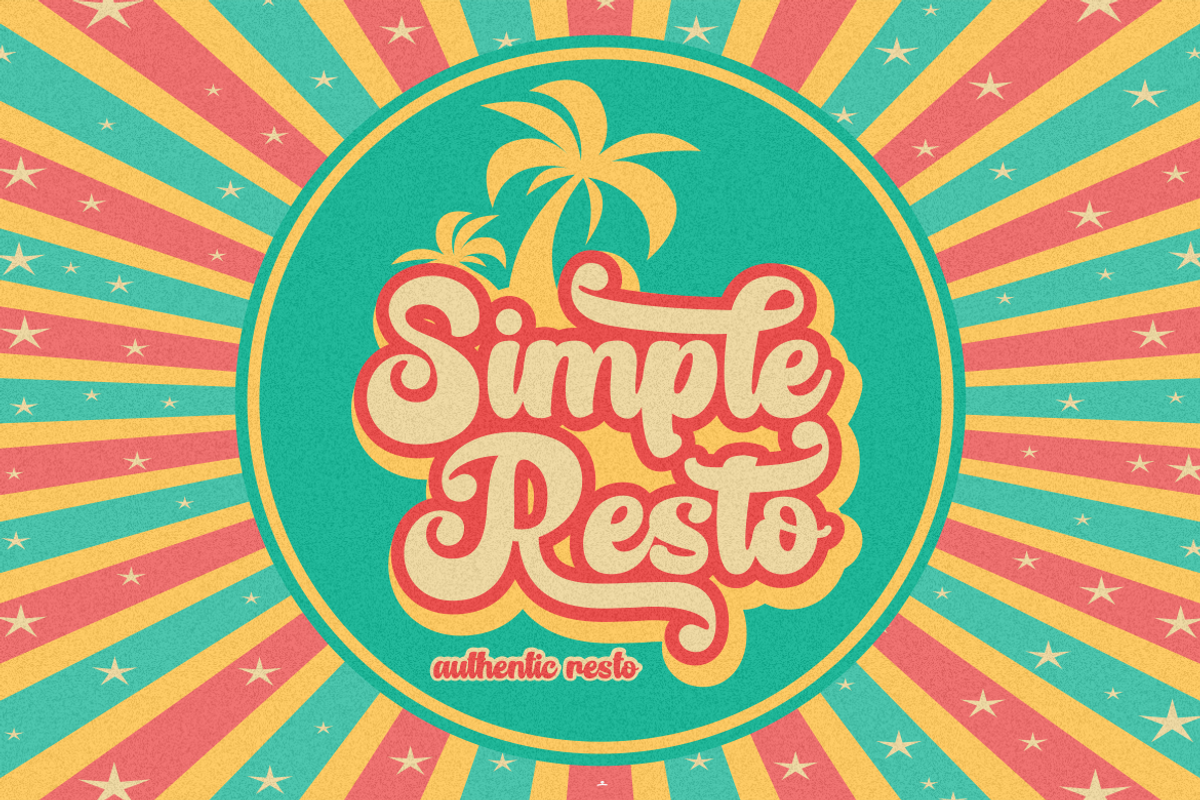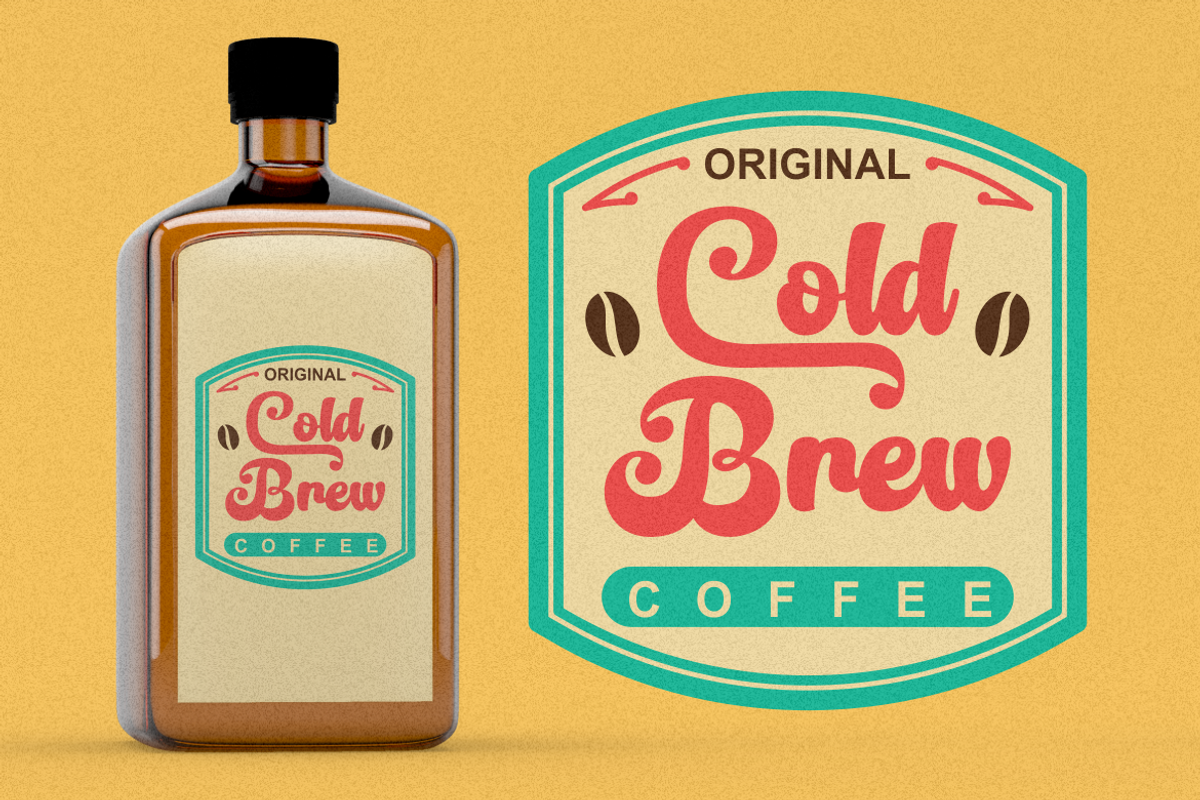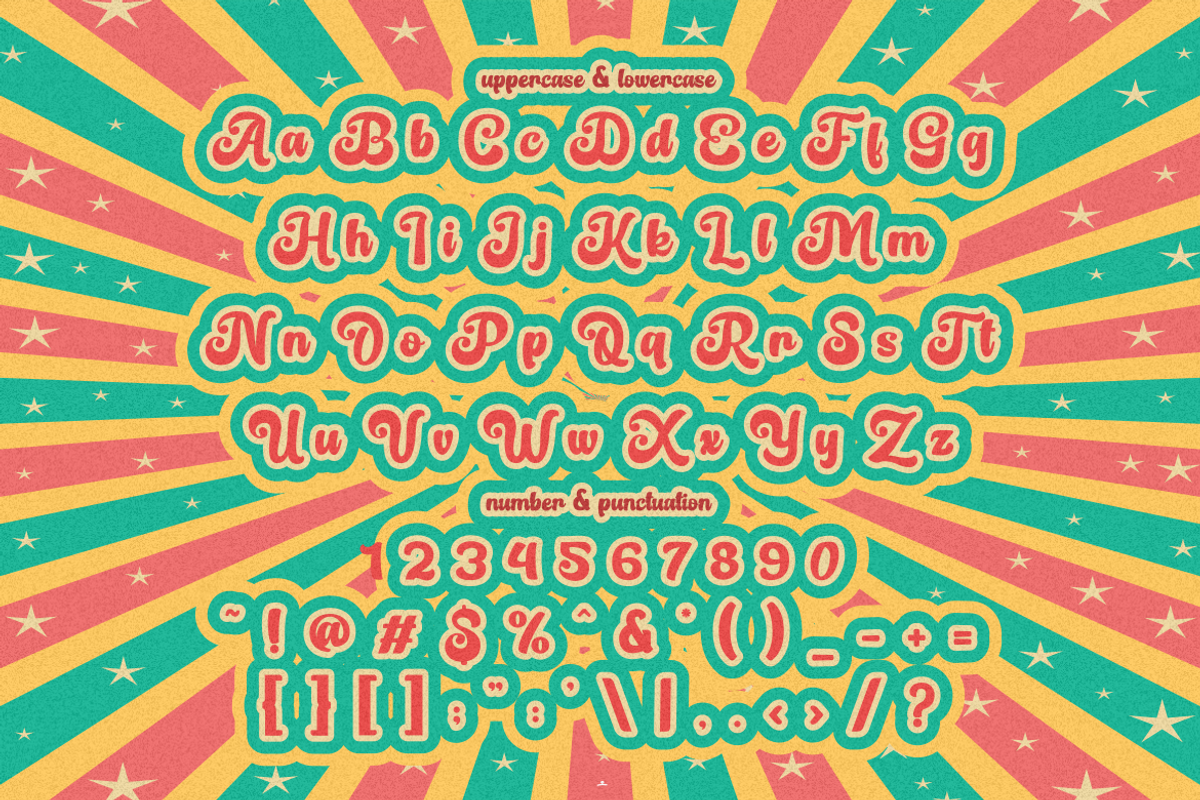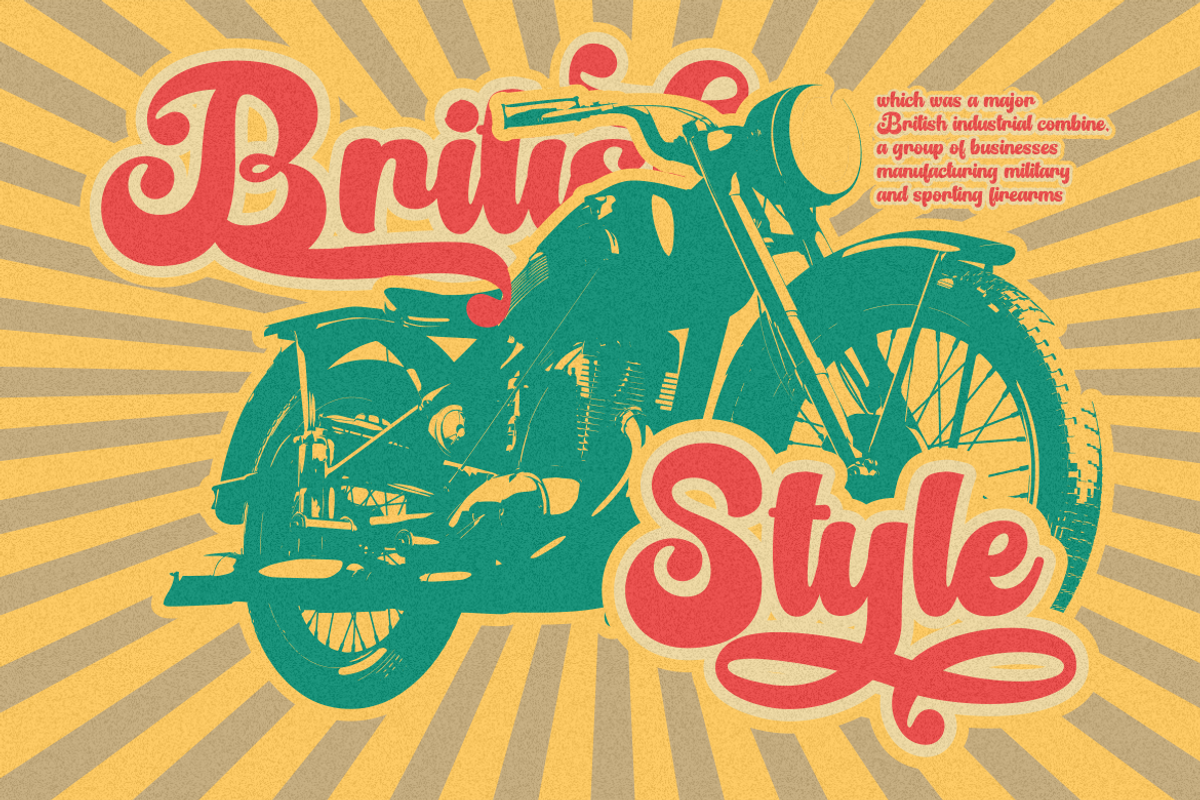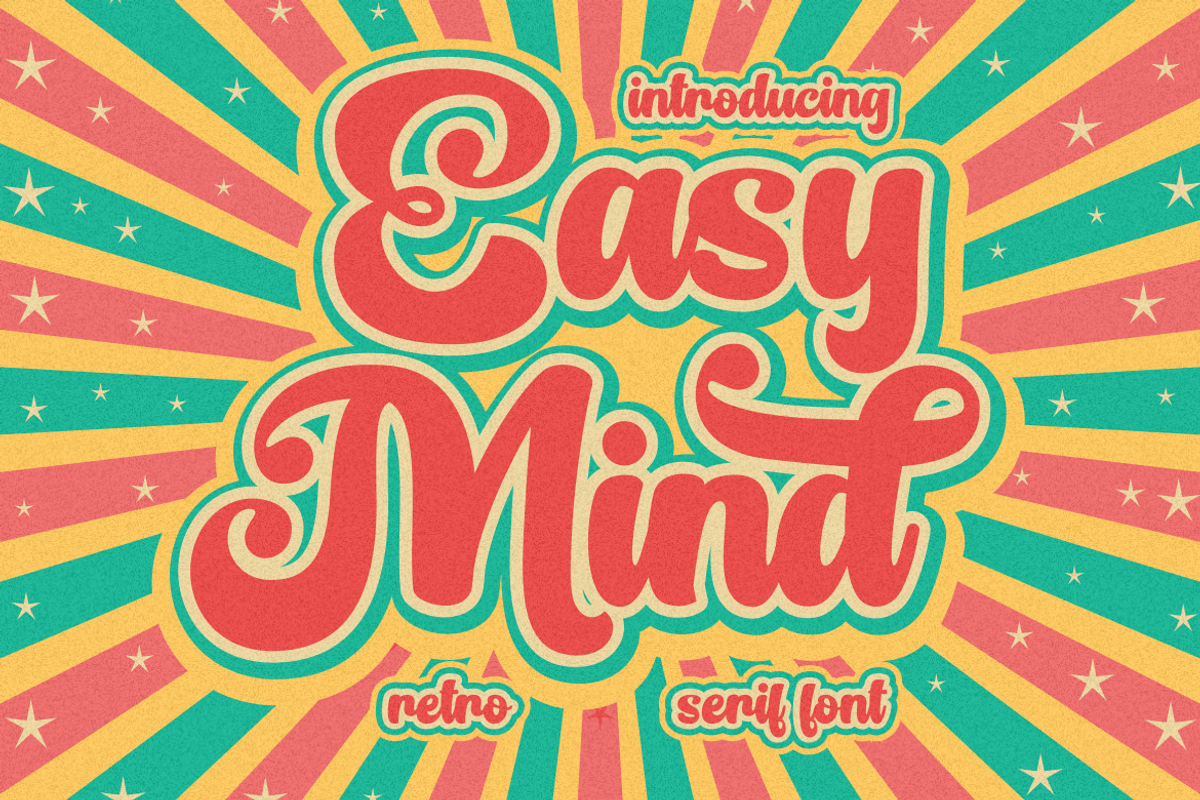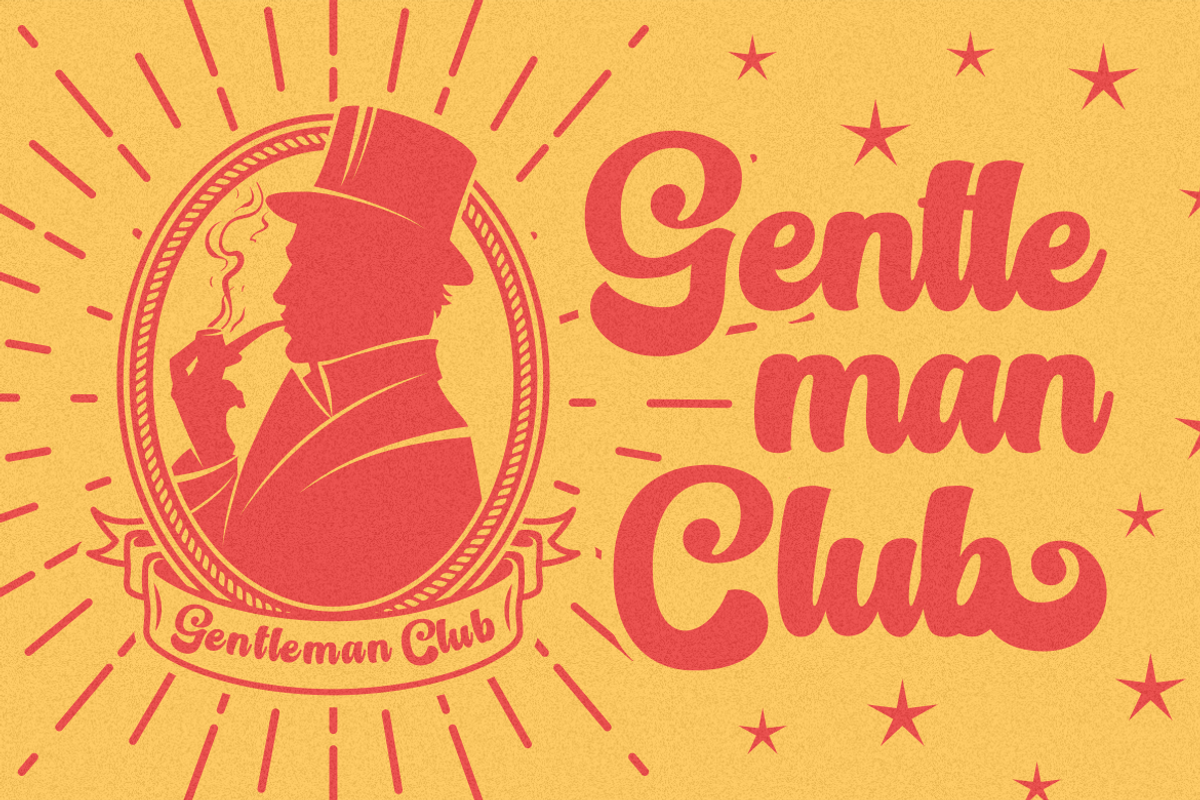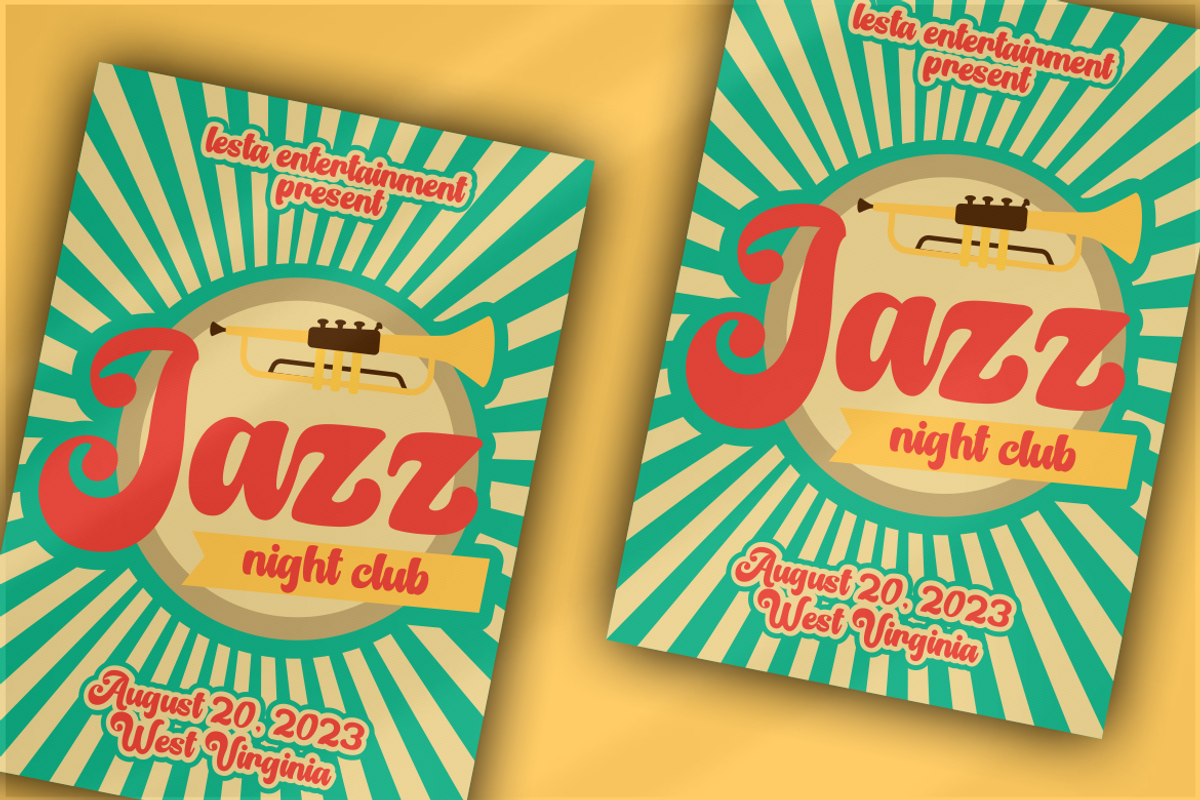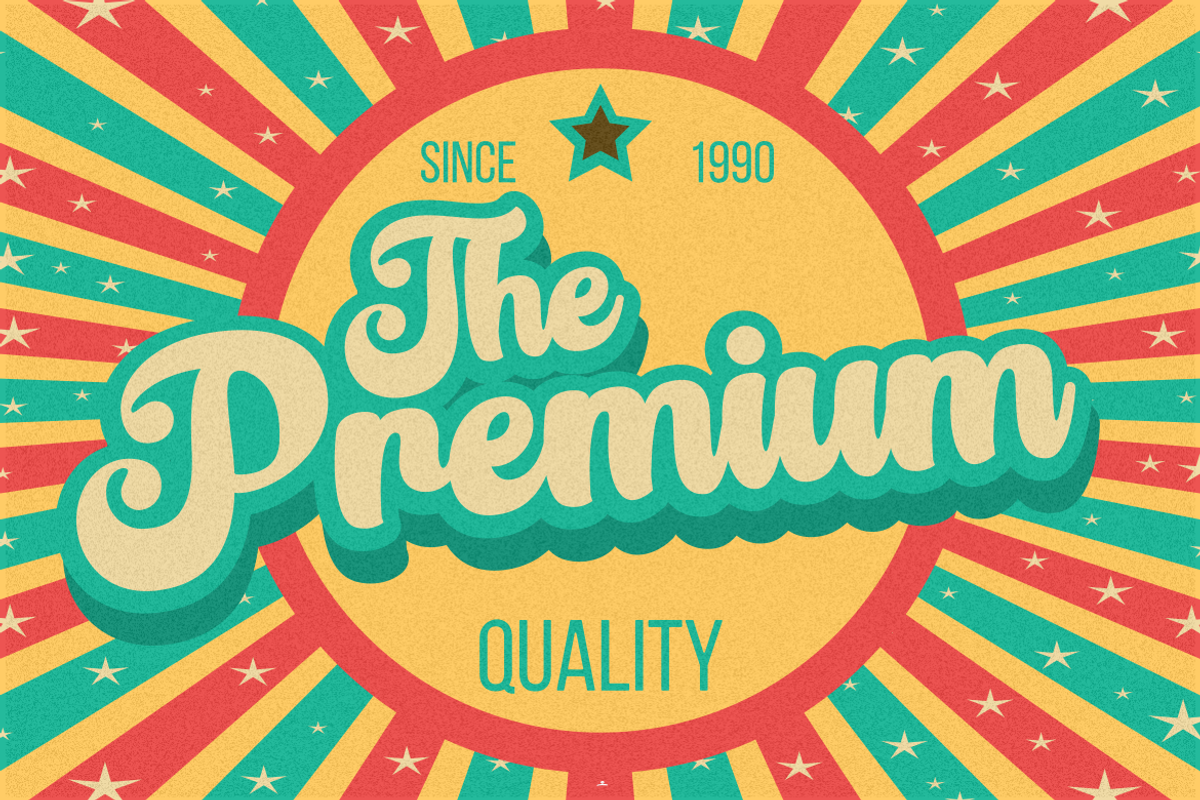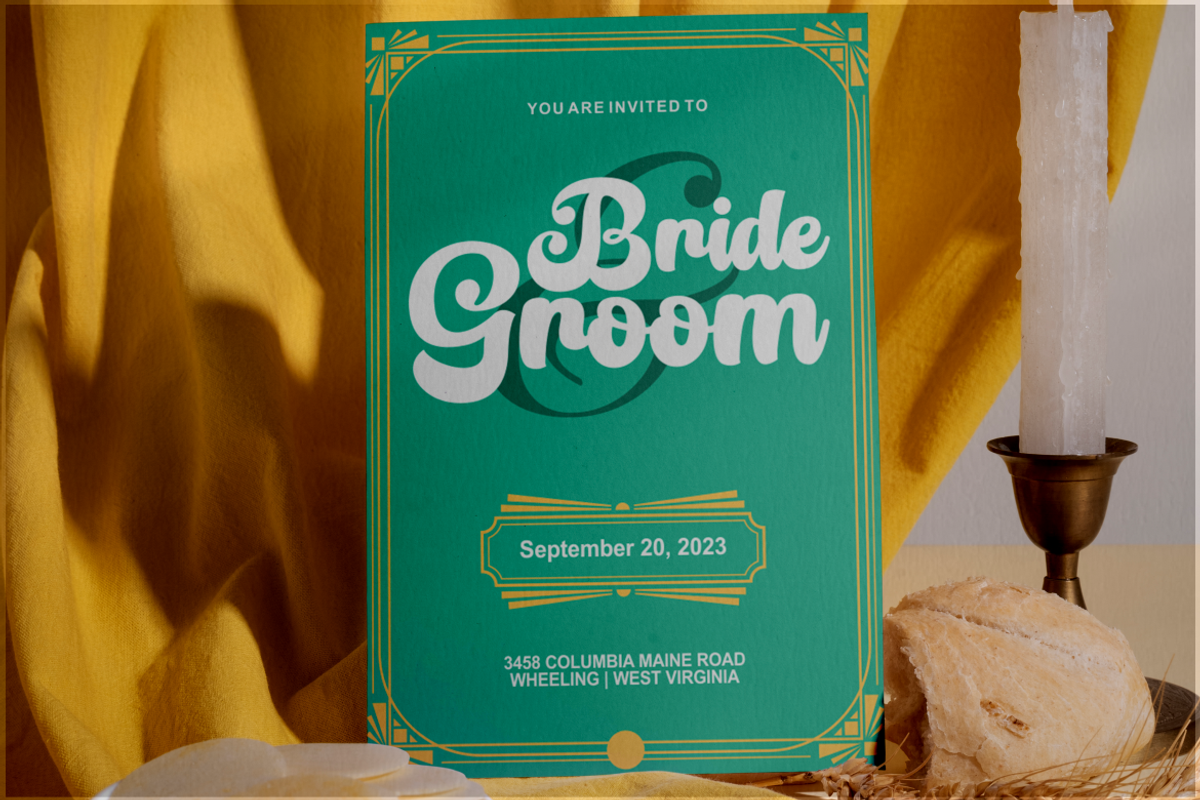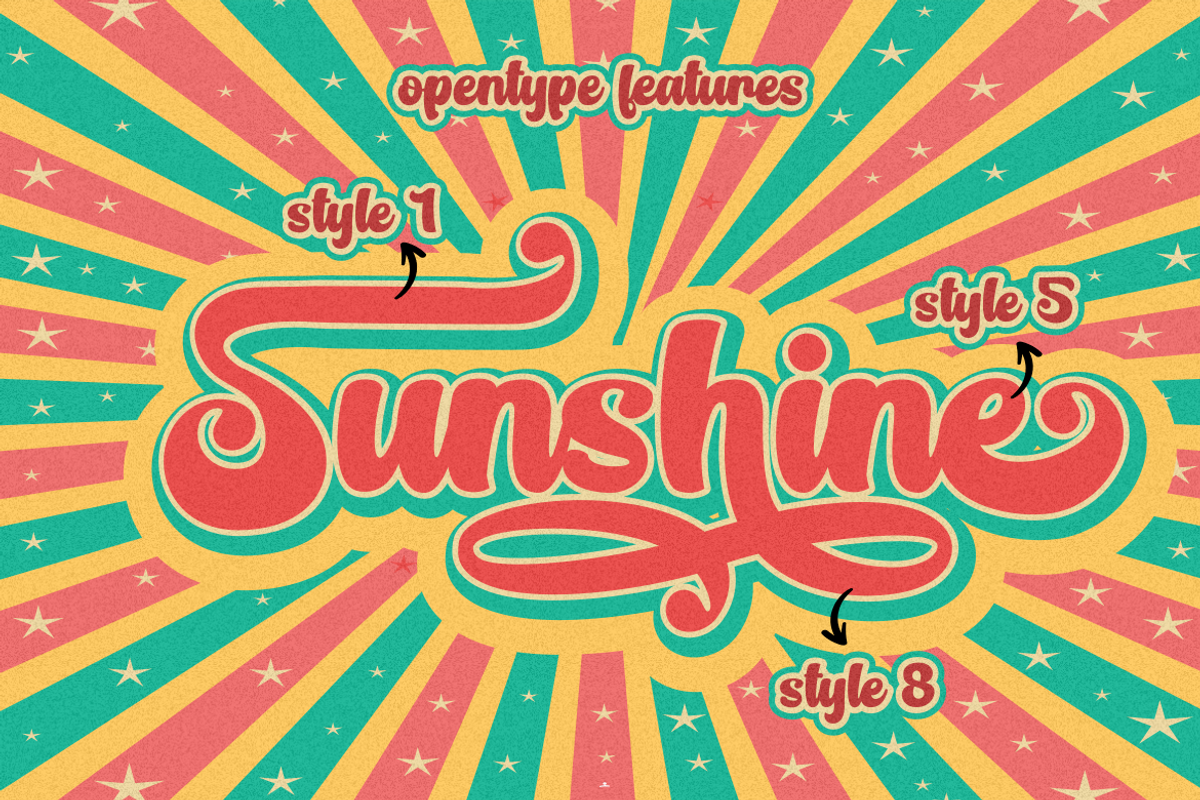
Easy Mind - Retro Serif Font
Easy Mind - Retro Script Font is a captivating retro script typeface designed to transport your designs to a bold and vintage world. Its distinctive style showcases the perfect blend of boldness and retro aesthetics, making it an ideal choice for various creative applications. This font comes with an extensive set of alternative characters, each offering a multitude of unique shapes and swashes, adding versatility and flair to your designs.
Perfect for logos, packaging, invitations, greeting cards, posters, magazines, titles, business branding, and all projects with a retro or vintage theme, Easy Mind infuses your designs with a sense of nostalgia and timeless charm.
With its bold and retro style, this font allows you to effortlessly channel the spirit of the past into your creative projects, giving them a distinctive and classic touch.